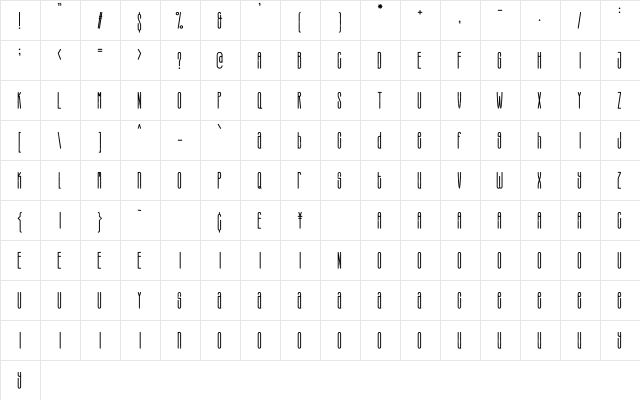
Therlalu - Free Vers Rough Regular
| Foundry | Putracetol Studio |
| Designer | Putra Novembria Candra Kusuma |
Design Context for Therlalu - Free Vers Rough Typeface
Therlalu - Free Vers Rough embraces imperfection — its rough, textured character adds raw authenticity to designs that want to feel lived-in and unconventional.
Suited to punk-influenced zines, underground music branding, streetwear, and raw, anti-corporate design.